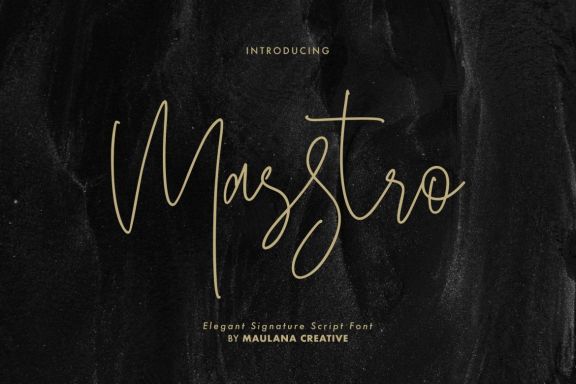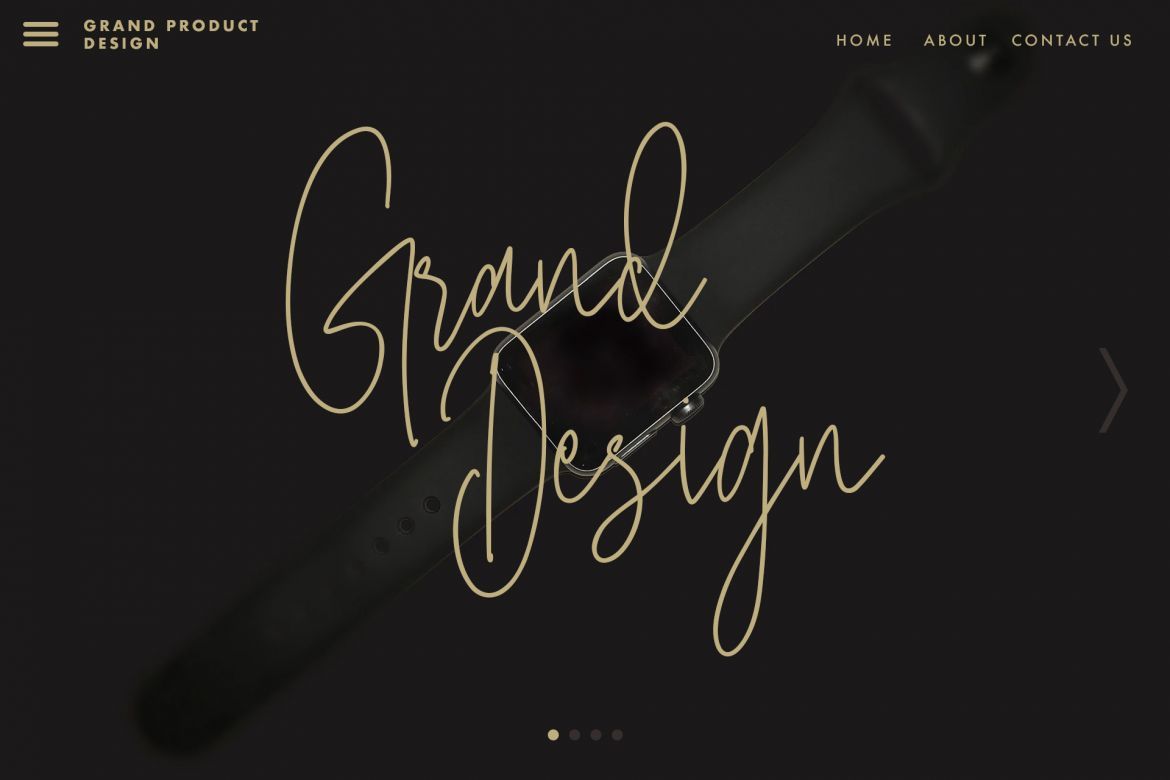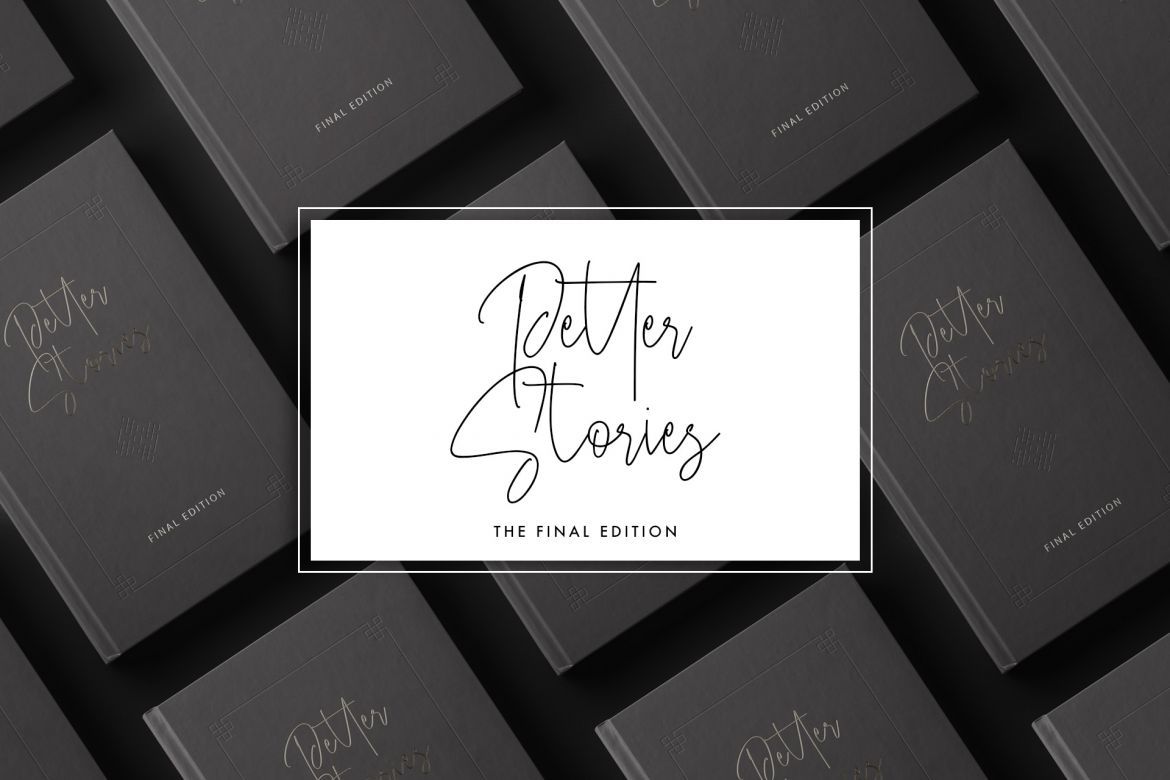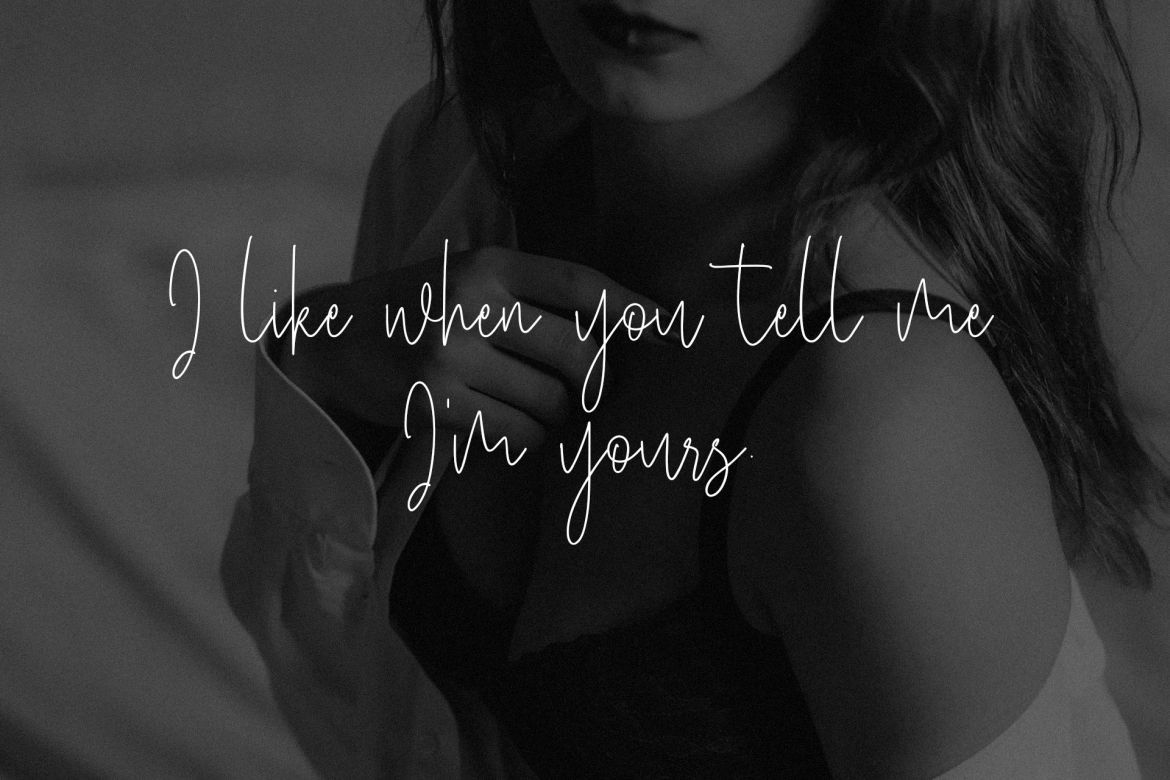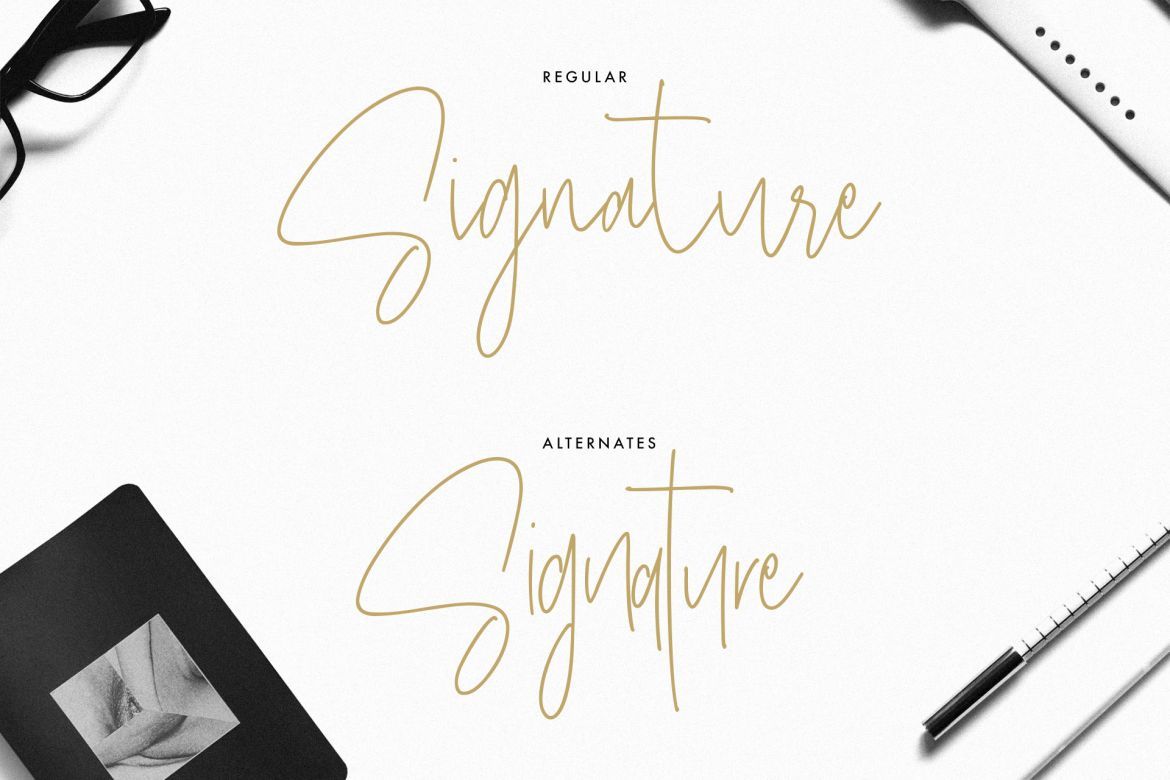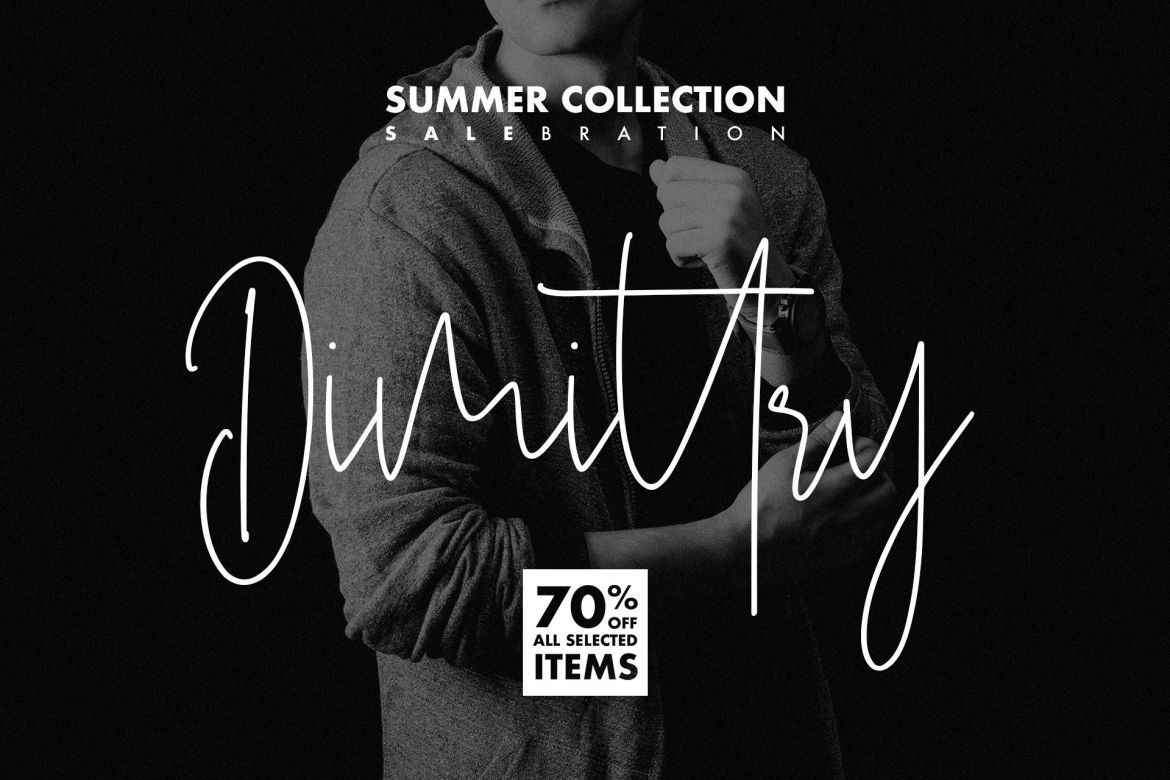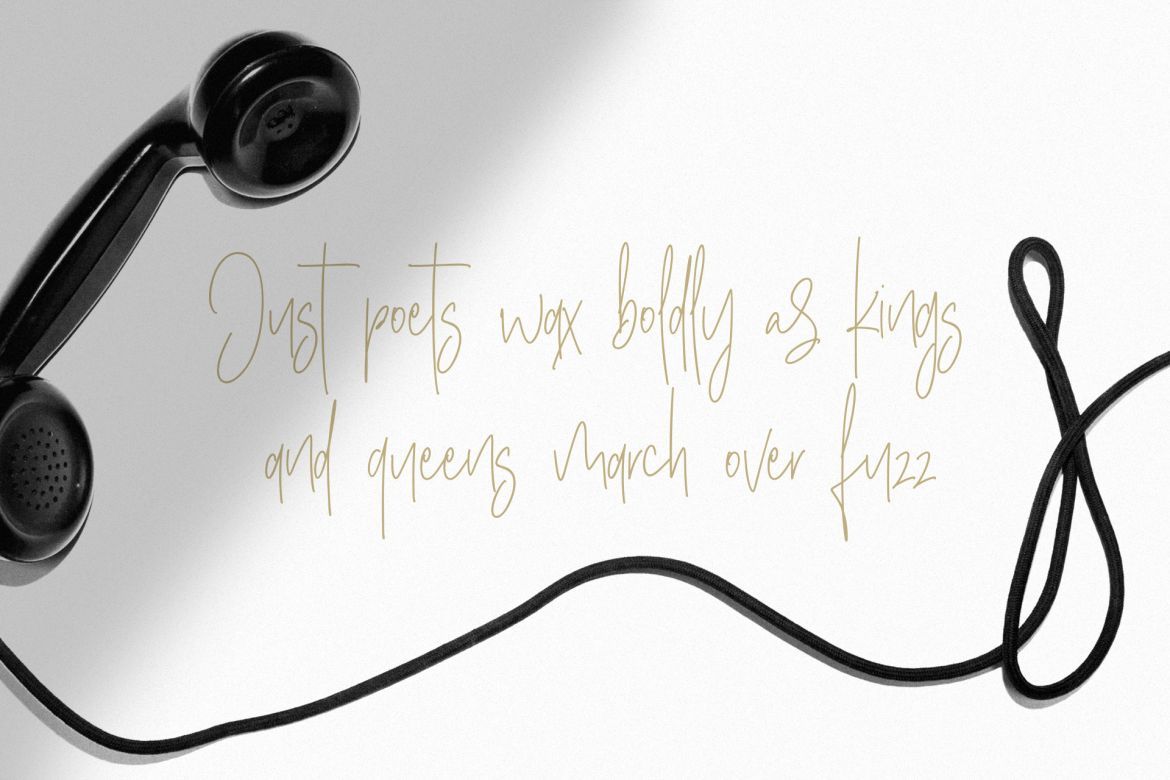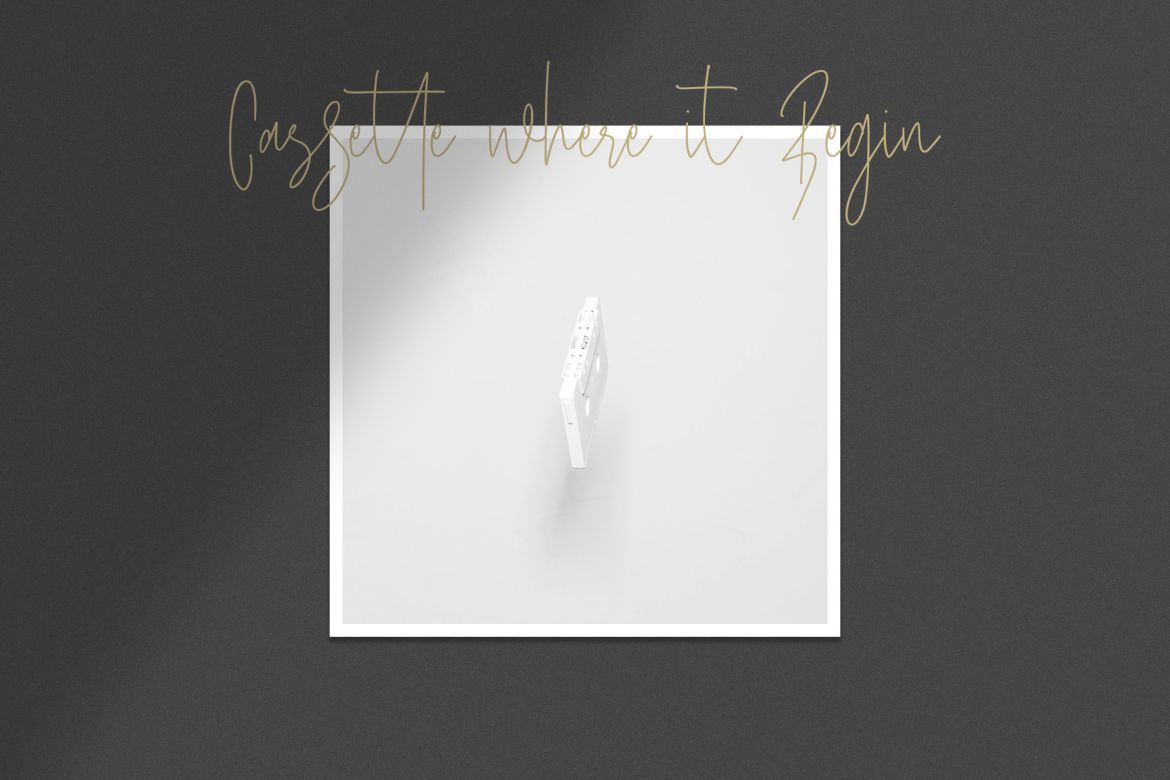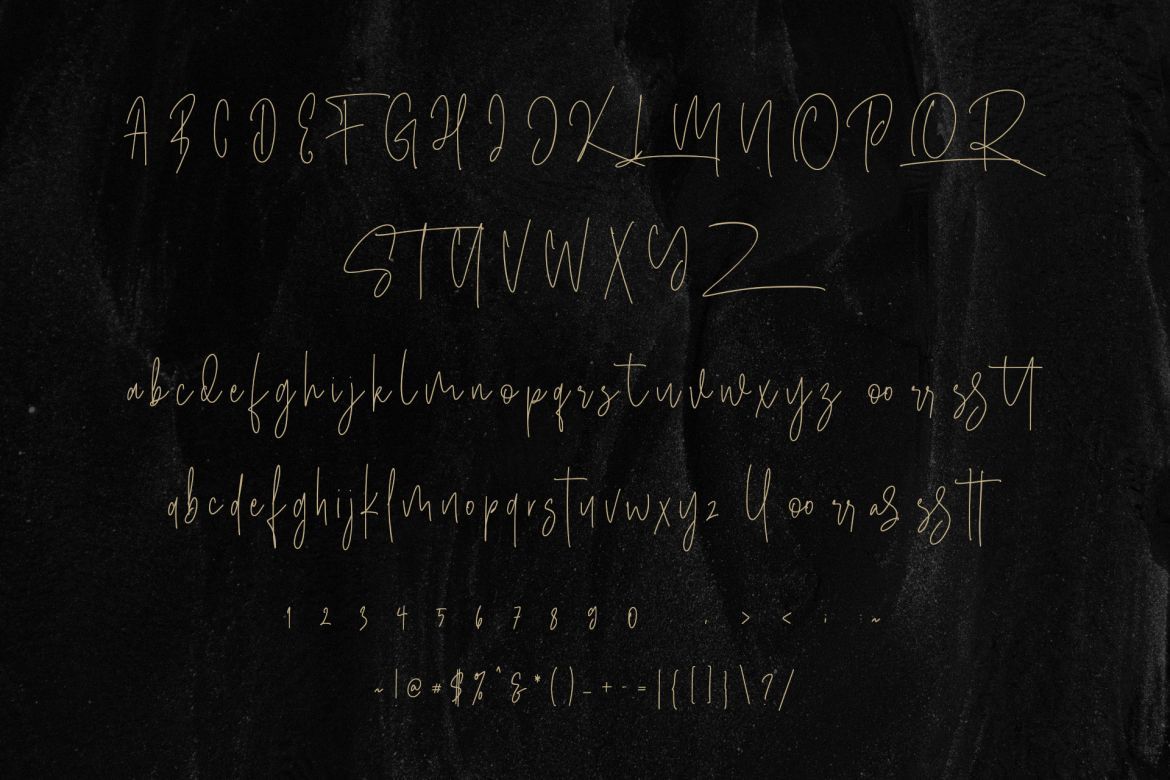
Masstro Signature Typeface
Give your designs an authentic handcrafted feel. "Masstro" is perfectly suited to signature, stationery, logo, typography quotes, magazine or book cover, website header, clothing, branding, packaging design and more. Include Ligatures.